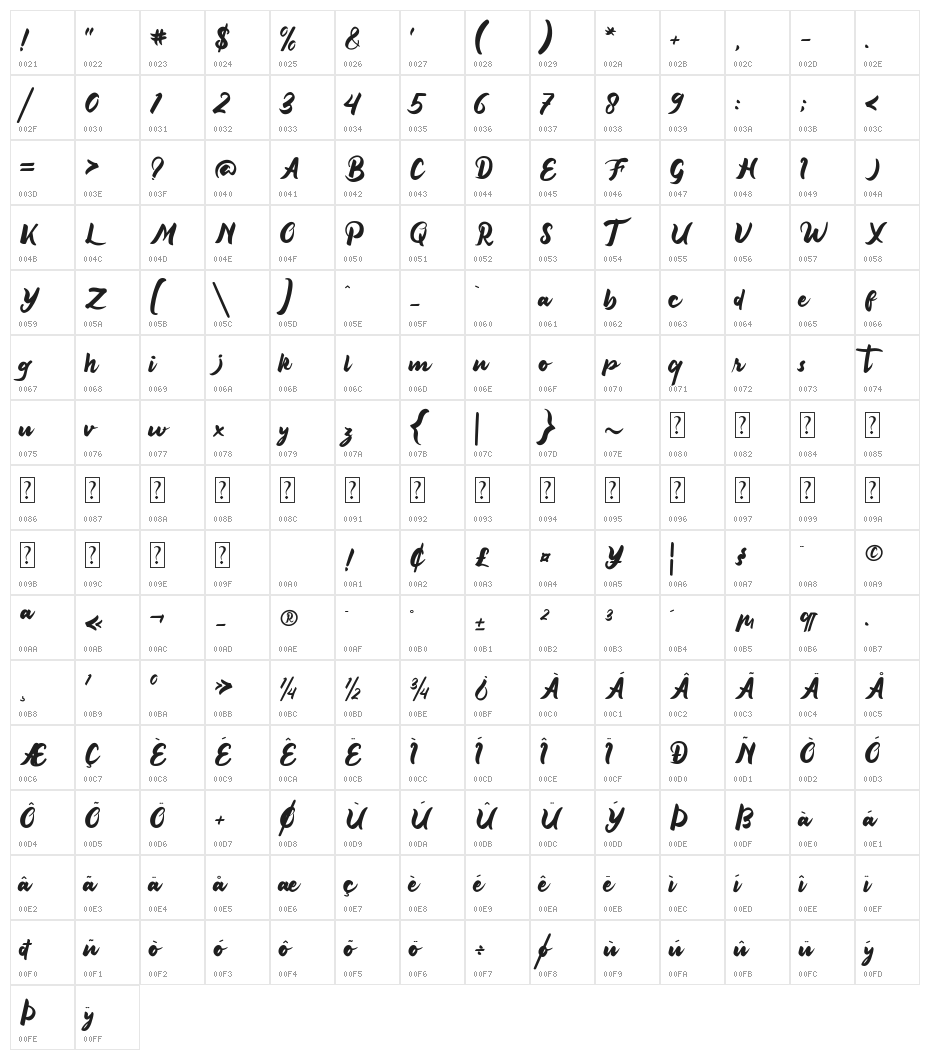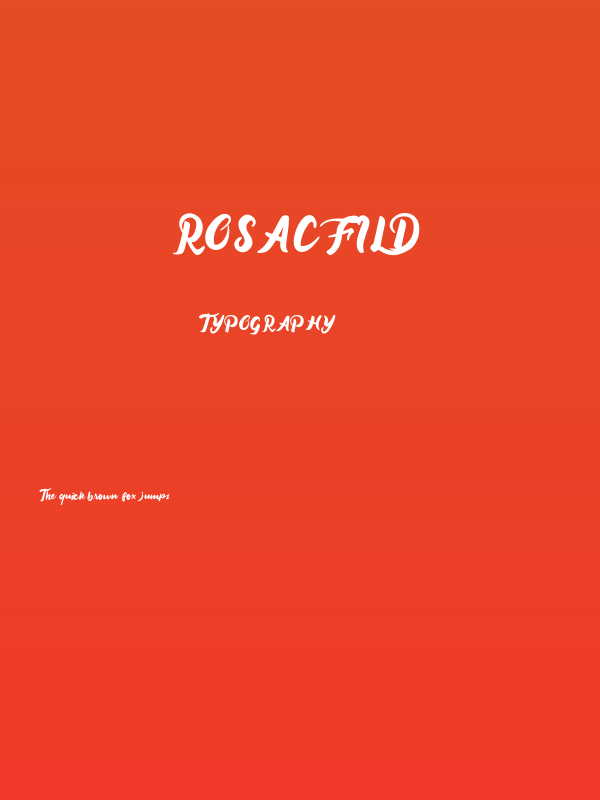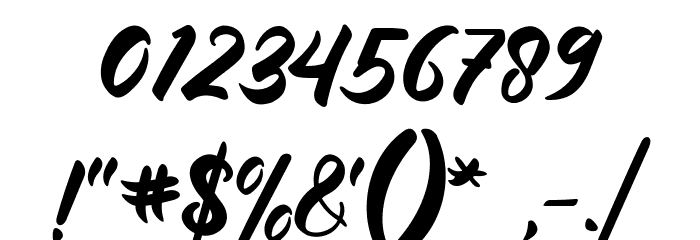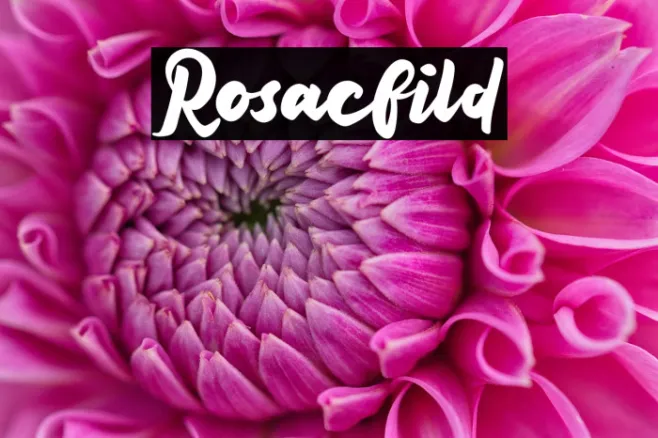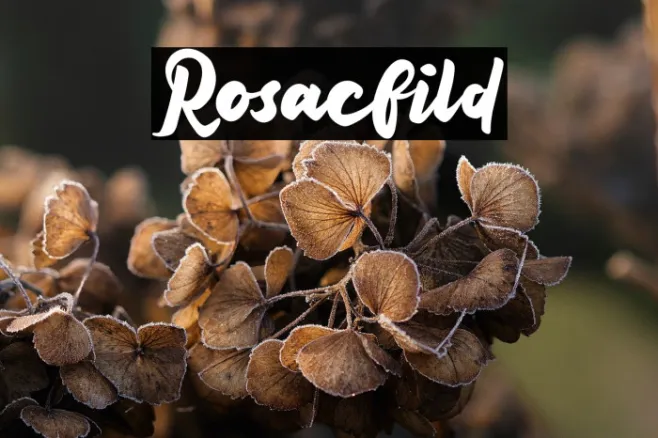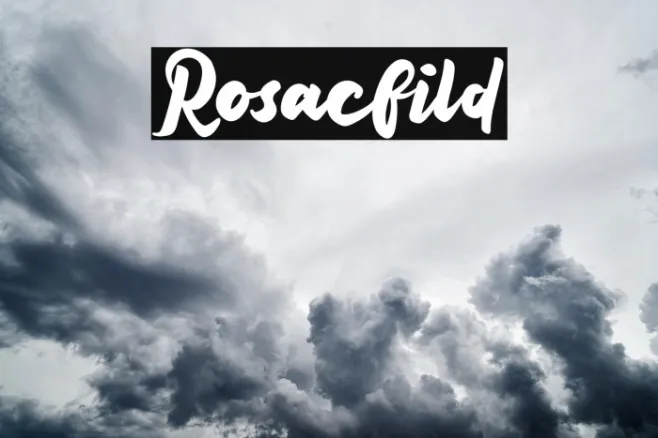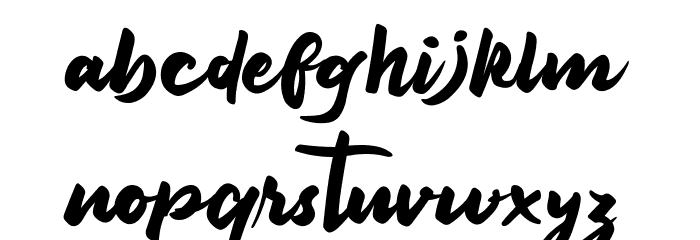
Rosacfild Font
Rosacfild Description
This font features a bold and expressive script style, characterized by its flowing, cursive letters. The uppercase letters are dynamic and slightly slanted, giving a sense of movement and energy. The lowercase letters maintain a cohesive style with smooth connections between strokes, enhancing the handwritten feel. The numerals are bold and consistent with the overall style, making them easily readable. Special characters are creatively designed, adding to the font's decorative appeal. The overall look is modern yet retains a classic script charm, making it versatile for various design needs.